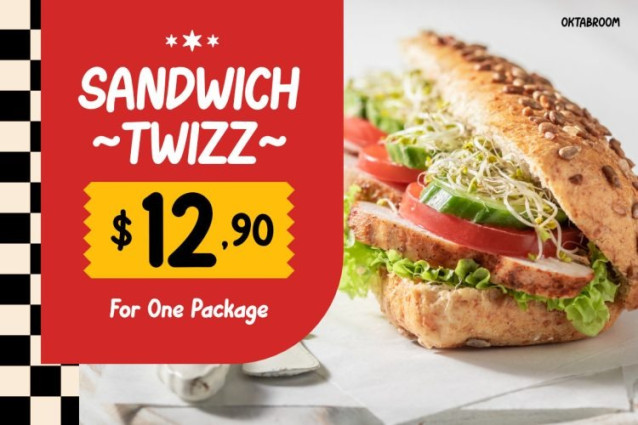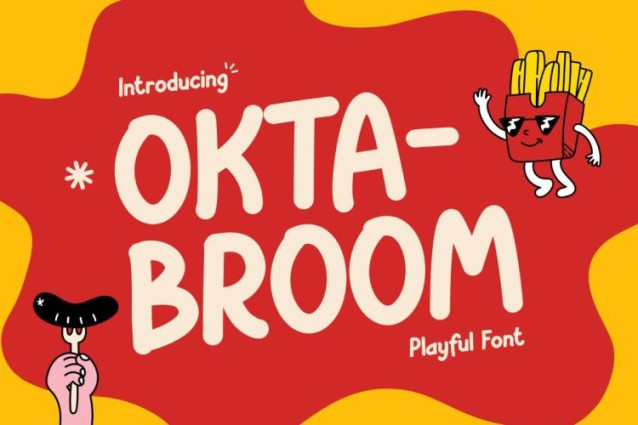
Oktabroom Font
Oktabroom Font delivers bold energy with a playful attitude that instantly grabs attention. Its chunky letterforms and rounded shapes create a fun and friendly look. Every character feels strong, cheerful, and easy to read. This font turns simple words into lively visual highlights. Inspired by kid-friendly graphics and food branding, Oktabroom brings joy to every design. The bold structure ensures high visibility across print and digital media. As a result, your message stays clear, bright, and memorable.
Kids Font Oktabroom is built to make designs feel exciting and approachable. Thick strokes give each letter strong impact and balance. Rounded edges soften the look and keep it playful. The font works especially well for short headlines and bold statements. Moreover, its energetic rhythm adds movement to static layouts. Designers can easily pair it with colorful elements and illustrations. Because of its strong readability, Oktabroom performs well at any size. It helps messages stand out without losing clarity or charm.
In addition, Oktabroom supports eye-catching layouts for promotions and campaigns. It creates a friendly tone that feels welcoming to young audiences. The playful style also helps brands appear more approachable. Whether used on posters or packaging, the font keeps attention focused on the message. Each letter feels expressive but controlled. This balance makes the font practical and fun at the same time.